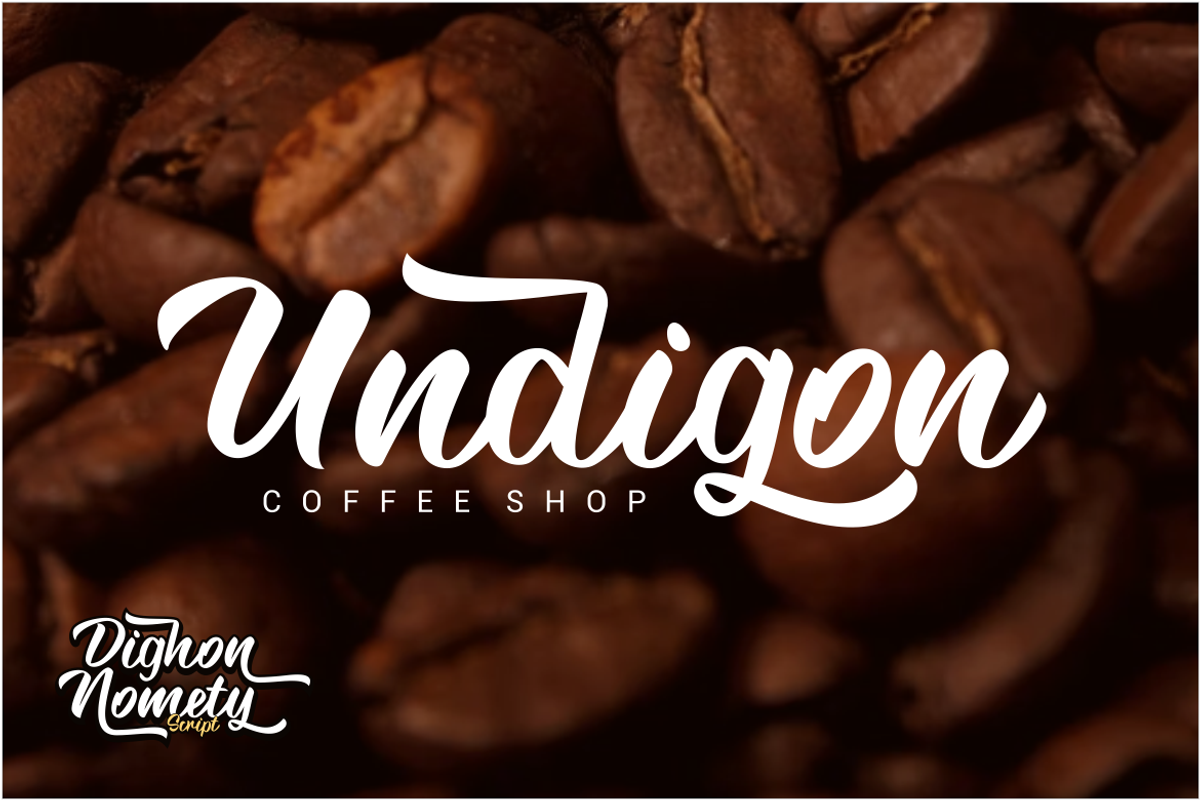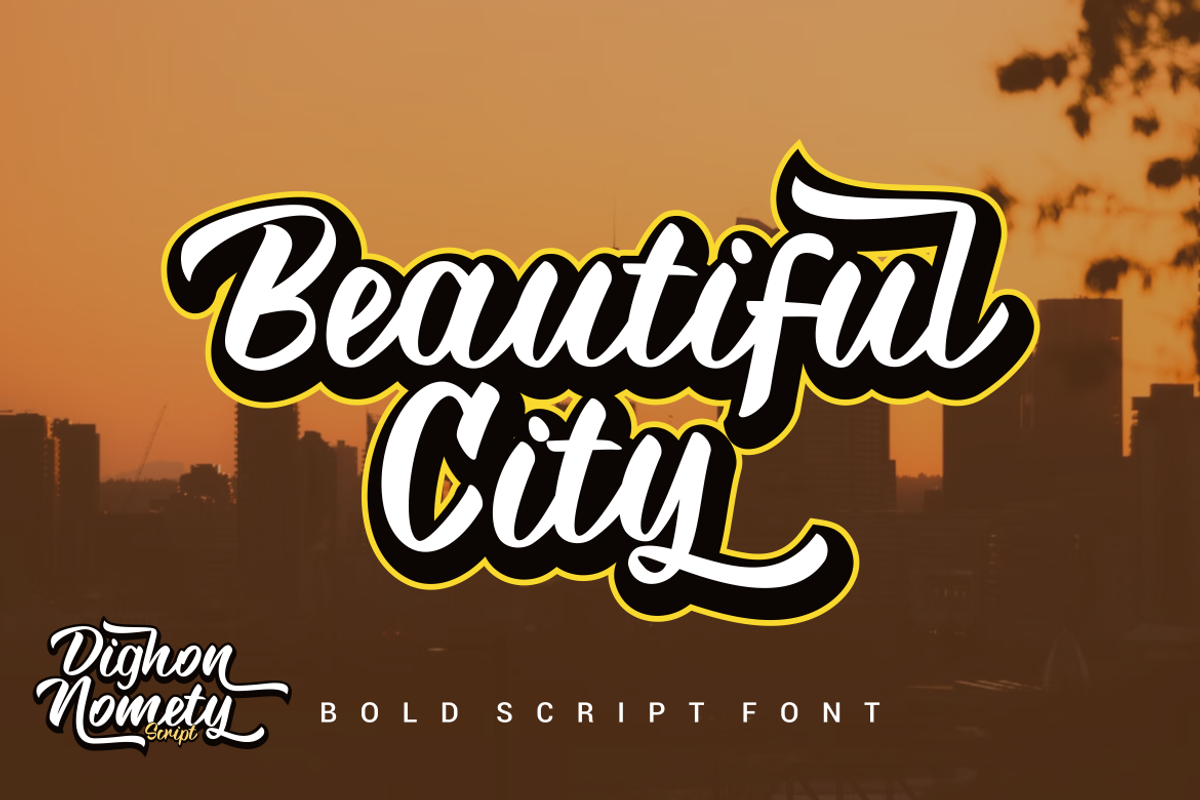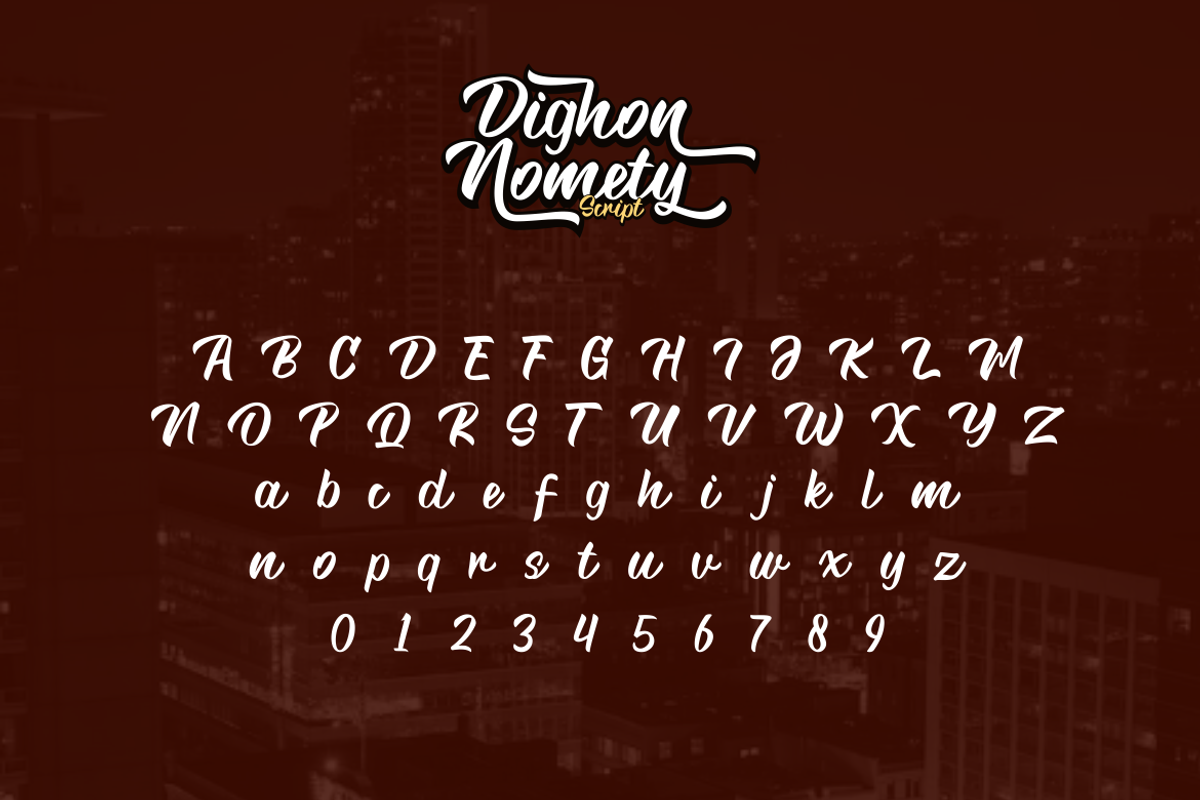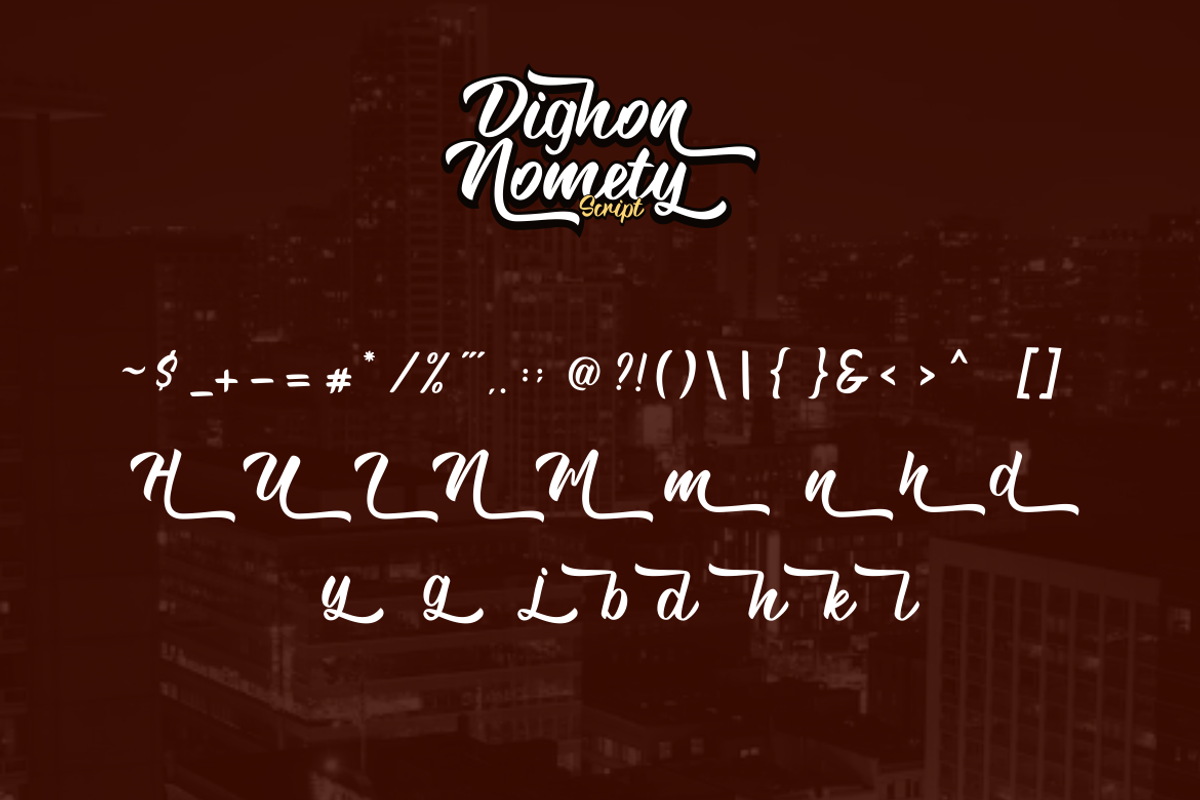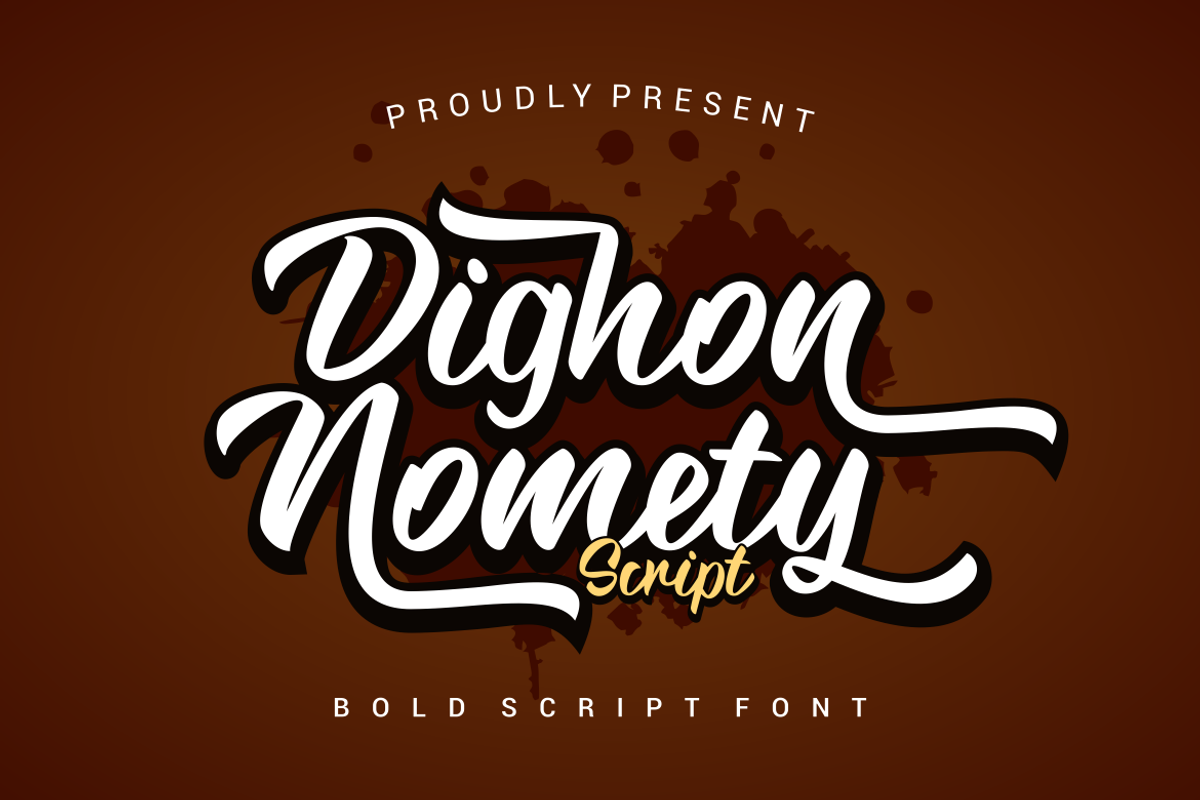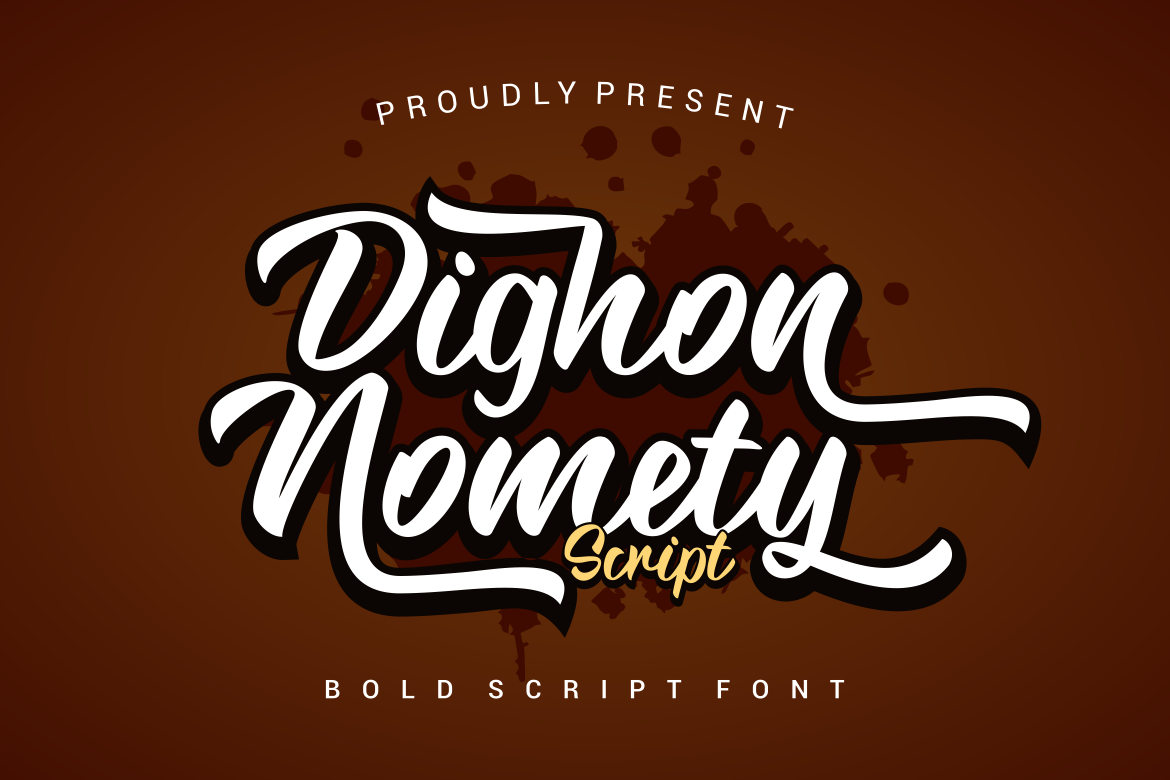
Dighon Nomety Font
Presenting our new product Dighon Nomety Font - Modern Font is a bold and authentic display font. This font is perfect for any branding project such as logos, t-shirt printing, creative products, and more. extraordinary in a variety of contexts.